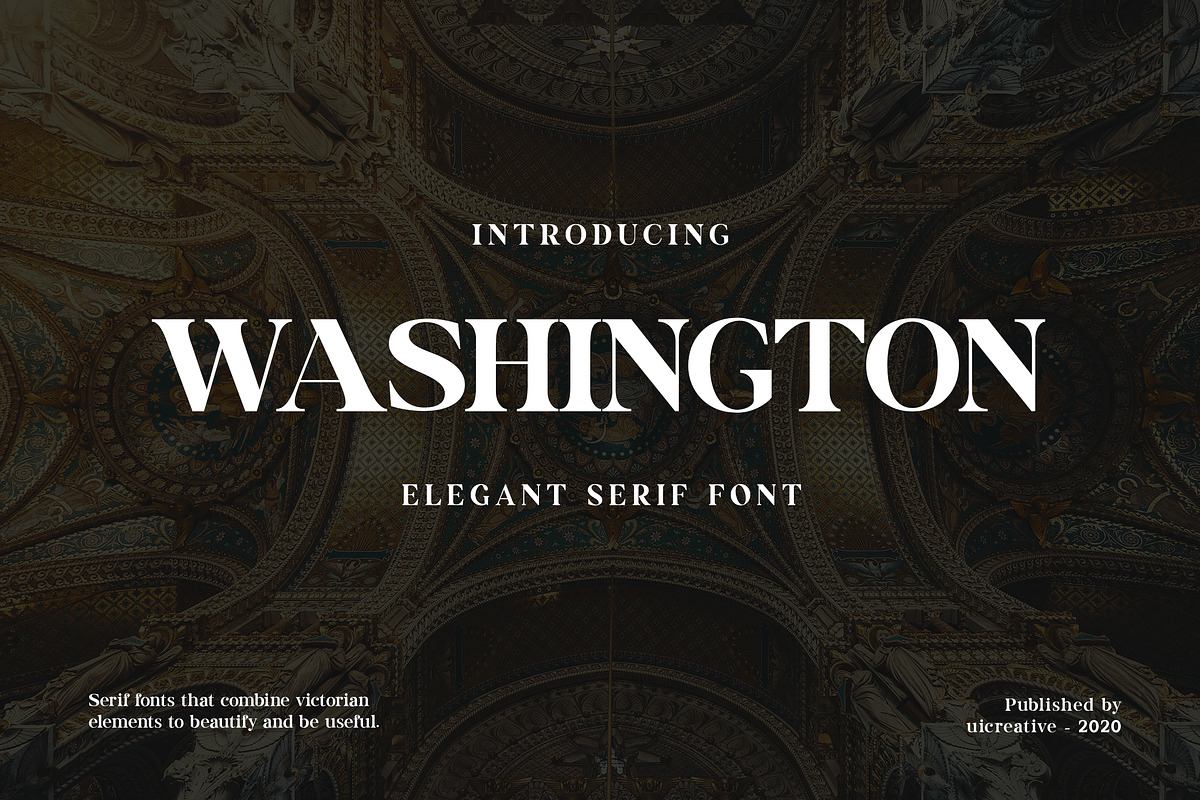
Washington Display Serif Font Free Download
Washington Display Serif Font Free Download is a bold and refined typeface that blends classic serif structure with a modern, attention-grabbing twist. Designed for impactful headlines, elegant branding, magazine covers, and luxury packaging, this font offers both sophistication and strength in every letterform.
Washington Display Serif Font Free Download delivers high contrast strokes and sharp, stylish serifs that make your typography stand out. Whether you're crafting a premium logo, editorial layout, or stylish poster, this font adds authority and elegance to your work. Download it today and elevate your designs with the powerful charm of Washington Display.